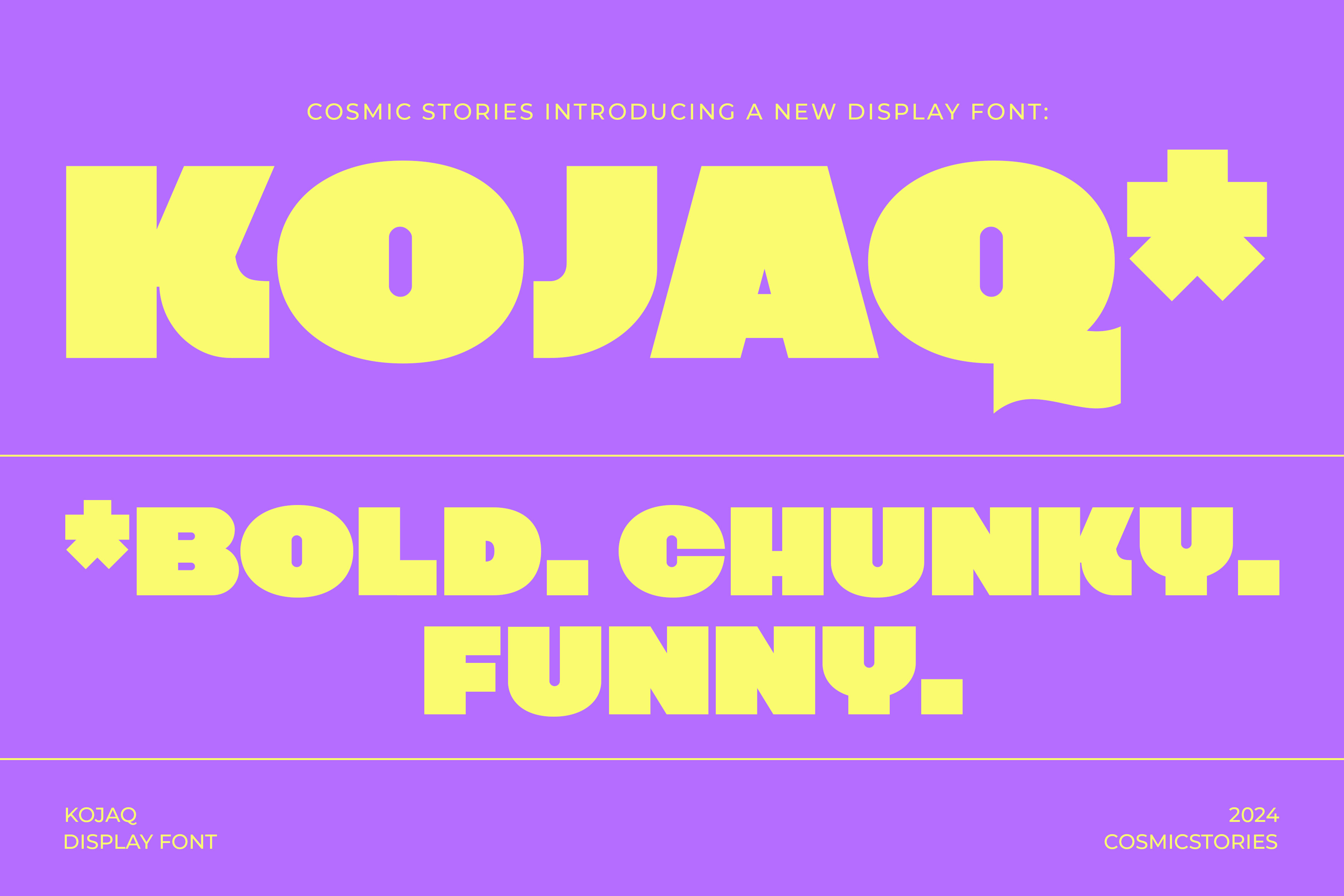
KOJAQ / A Chunky Sans Serif Font
Bold, unapologetic, and impossible to ignore—meet Kojaq, the extra bold sans-serif that makes a statement with every letter. Whether you're looking to pack a punch in your headlines or bring sleek attitude to your designs, this font does all the heavy lifting. Perfect for those who believe that when it comes to type, bigger and bolder is better. Kojaqhere to boost your game with bold, high-impact design. Perfect for creating attention-grabbing headlines, eye-catching social media graphics, and powerful call-to-actions, this font speaks louder than words. Includes multilingual support and special symbols to complete your projects.